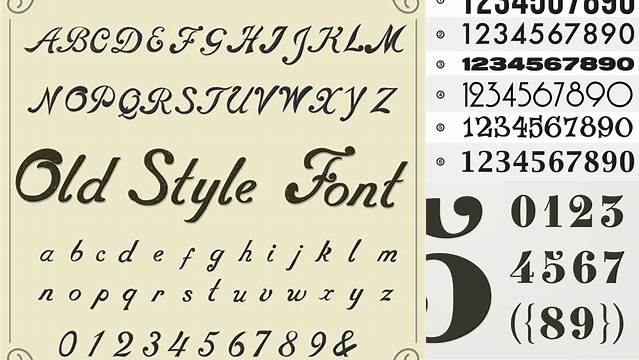
Cool Number Fonts: A Guide To Different Styles
Fonts play a crucial role in how we perceive and interpret information. While we often focus on letter fonts, number fonts are equally important, especially in contexts like graphic design, web development, and even everyday documents. Let's dive into the fascinating world of number fonts, exploring various styles and their applications.
Serif Number Fonts
Serif fonts, characterized by the small decorative strokes (serifs) at the end of each character, often convey a sense of tradition, authority, and elegance. When it comes to numbers, serif fonts can be particularly effective in formal settings or when you want to project a sense of reliability. Times New Roman, a classic serif font, is a quintessential example. Its numbers are easily recognizable and blend seamlessly with the text. Consider using Times New Roman or similar serif fonts for financial reports, legal documents, or academic papers where clarity and a professional appearance are paramount. Another popular choice is Garamond, known for its readability and timeless appeal. Garamond's numbers have a slightly more refined and sophisticated look compared to Times New Roman, making it suitable for publications that aim for a touch of class. For example, a high-end magazine might use Garamond for its page numbers or in articles discussing historical topics. Then we have Georgia, a serif font designed specifically for screen readability. Its numbers are clear and well-defined, even at smaller sizes, making it an excellent option for websites and digital documents. Georgia is a great alternative to Times New Roman when you need a serif font that looks good on screens. In essence, serif number fonts are your go-to option when you want to communicate stability, trustworthiness, and a sense of history. They are versatile enough to be used in various contexts, but they truly shine in situations where professionalism and readability are key.
Sans-Serif Number Fonts
Sans-serif fonts, lacking the decorative serifs, are generally perceived as modern, clean, and minimalist. In the realm of number fonts, sans-serif options offer a contemporary aesthetic that's well-suited for digital displays, user interfaces, and designs that prioritize simplicity. Arial, a widely used sans-serif font, provides numbers that are clear, legible, and unobtrusive. Its neutrality makes it a versatile choice for various applications, from websites to spreadsheets. If you're designing a dashboard or a data visualization, Arial's numbers will ensure that the data remains the focal point. Helvetica, another popular sans-serif font, is known for its clean lines and geometric shapes. Its numbers have a distinctively modern look, making it ideal for branding materials, posters, and websites that aim for a sleek and sophisticated appearance. Imagine a tech company using Helvetica for its annual report; the font's clean aesthetic would reinforce the company's image of innovation and efficiency. Open Sans is a humanist sans-serif font designed with readability in mind. Its numbers are open and airy, making them easy to distinguish even at small sizes. This font is particularly well-suited for mobile applications and websites where users need to quickly scan information. Using Open Sans for the numbers in a mobile banking app, for instance, would enhance the user experience by ensuring that account balances and transaction details are easily readable. Sans-serif number fonts are your best bet when you want to convey a sense of modernity, clarity, and simplicity. They work exceptionally well in digital environments and designs that prioritize a clean and uncluttered aesthetic. When choosing a sans-serif number font, consider the overall tone and message you want to communicate. A geometric font like Helvetica might be perfect for a tech startup, while a more humanist font like Open Sans could be a better fit for a healthcare website.
Monospace Number Fonts
Monospace fonts are unique in that each character occupies the same horizontal space. This characteristic makes them particularly useful in situations where alignment is crucial, such as in coding, financial statements, and tables. Courier New, a classic monospace font, is a staple in the world of programming. Its numbers are clear and consistent, making it easy to read code and identify numerical values. If you're writing code or creating a technical document, Courier New is an excellent choice. Consolas, a more modern monospace font, is designed for enhanced readability in coding environments. Its numbers are carefully crafted to be easily distinguishable, even when surrounded by other characters. This font is a favorite among developers who spend hours staring at code on a screen. Imagine debugging a complex program; Consolas can help you quickly identify errors in numerical data. And then we have Lucida Console, another monospace font that's optimized for screen display. Its numbers are crisp and clear, making it a good option for terminal emulators and other applications where text is displayed in a fixed-width format. Monospace number fonts are essential when you need precise alignment and consistent spacing. They are widely used in technical fields, but they can also be effective in creative designs that aim for a retro or typewriter-like aesthetic. When choosing a monospace number font, consider the specific context in which it will be used. A font like Courier New might be perfect for legacy systems, while a more modern font like Consolas could be a better fit for contemporary coding environments.
Display Number Fonts
Display fonts are designed to grab attention and make a statement. They often feature unique and unconventional designs that set them apart from more traditional fonts. When it comes to numbers, display fonts can add a touch of personality and flair to your designs. Impact, a bold and condensed sans-serif font, is known for its strong visual presence. Its numbers are thick and impactful, making them ideal for headlines, posters, and other designs that need to stand out. If you're creating a promotional banner or a social media graphic, Impact's numbers will ensure that your message is seen. Bebas Neue, a tall and narrow sans-serif font, offers a modern and minimalist aesthetic. Its numbers are clean and elegant, making them suitable for branding materials, websites, and other designs that aim for a sophisticated look. Picture a fashion brand using Bebas Neue for its logo and website; the font's sleekness would reinforce the brand's image of style and innovation. And then we have Playfair Display, a transitional serif font that exudes elegance and refinement. Its numbers are graceful and sophisticated, making them perfect for invitations, certificates, and other designs that require a touch of class. Display number fonts are all about making a statement and adding personality to your designs. They are not always the most legible option, so it's important to use them sparingly and in contexts where readability is not the primary concern. When choosing a display number font, consider the overall tone and message you want to convey. A bold font like Impact might be perfect for a sports-related design, while a more elegant font like Playfair Display could be a better fit for a wedding invitation.
Script Number Fonts
Script fonts mimic the look of handwriting, adding a personal and artistic touch to designs. While they are more commonly used for letters, script fonts can also be applied to numbers to create a unique and memorable effect. Brush Script MT, a casual and flowing script font, offers numbers that have a handwritten feel. They are perfect for adding a touch of informality and playfulness to designs. If you're creating a birthday card or a party invitation, Brush Script MT's numbers will add a personal touch. Pacifico, a rounded and friendly script font, exudes warmth and approachability. Its numbers are cheerful and inviting, making them suitable for designs that aim to create a welcoming atmosphere. Imagine a coffee shop using Pacifico for its menu; the font's friendly aesthetic would make customers feel right at home. And then we have Lobster, a bold and quirky script font that demands attention. Its numbers are unique and memorable, making them perfect for logos, posters, and other designs that need to stand out. Script number fonts are ideal for adding a personal touch and creating a unique visual identity. However, they can be challenging to read, so it's important to use them sparingly and in contexts where legibility is not the primary concern. When choosing a script number font, consider the overall tone and message you want to convey. A casual font like Brush Script MT might be perfect for a children's book, while a more elegant font could be a better fit for a wedding invitation.
In conclusion, selecting the right number font depends heavily on the context, the message you want to convey, and the overall aesthetic you're aiming for. Whether it's the traditional elegance of a serif, the modern simplicity of a sans-serif, the precise alignment of a monospace, the eye-catching flair of a display font, or the personal touch of a script, each category offers a unique flavor that can enhance your project. So, go ahead and experiment with different number fonts to find the perfect match for your needs! Guys, choosing the right font can really elevate your design game. Have fun exploring!